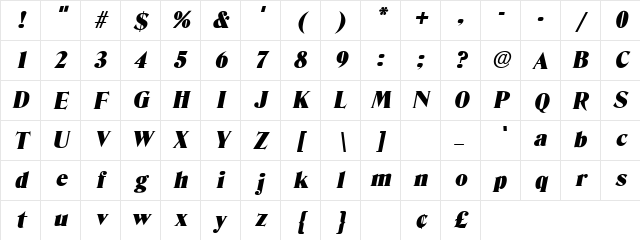
Grenadier Oblique
Design Context for Grenadier
Grenadier is a composed and adaptable typeface that performs quietly and consistently across a wide range of design contexts. The slanted form adds forward momentum and visual energy.
Pro Tip: Use Grenadier for emphasis, pull quotes, and subheadings where its slanted energy can add rhythm to the layout.